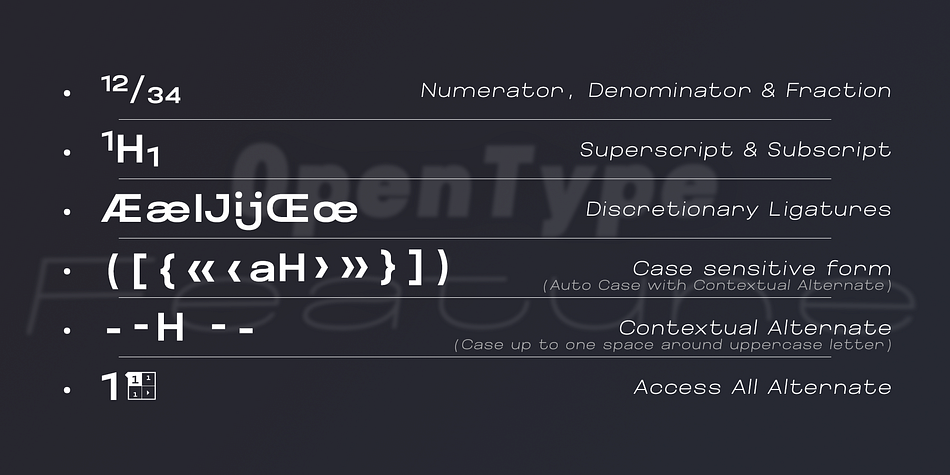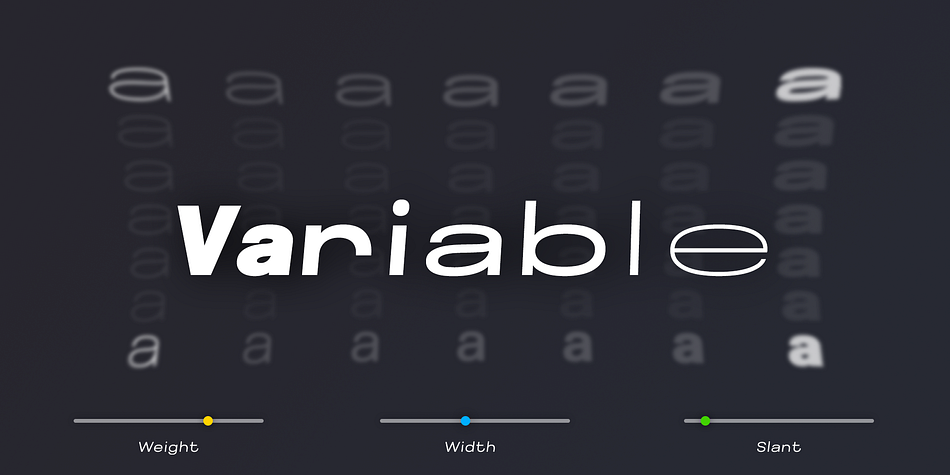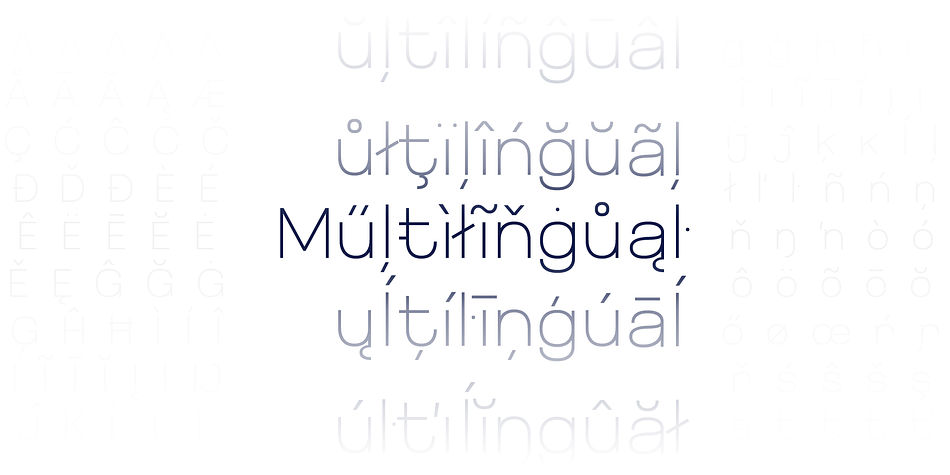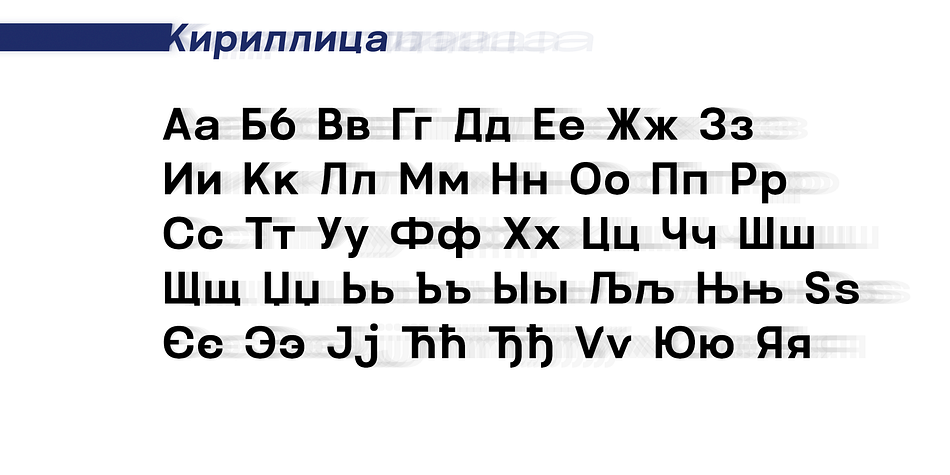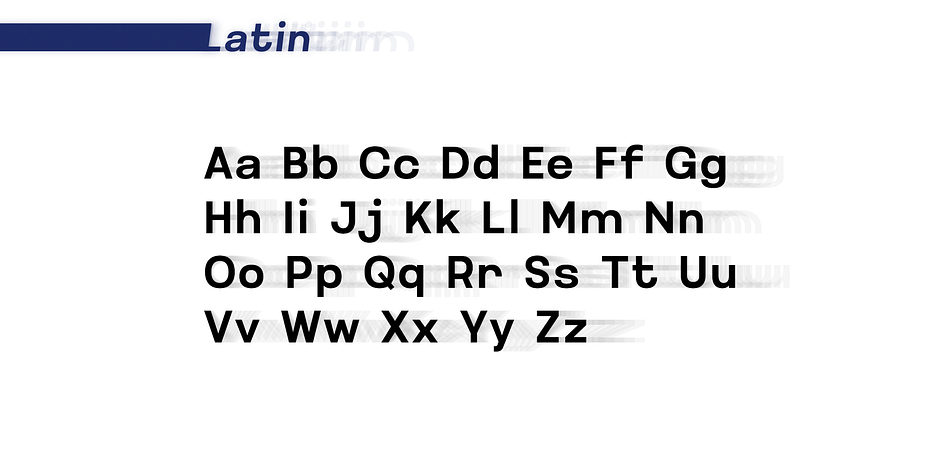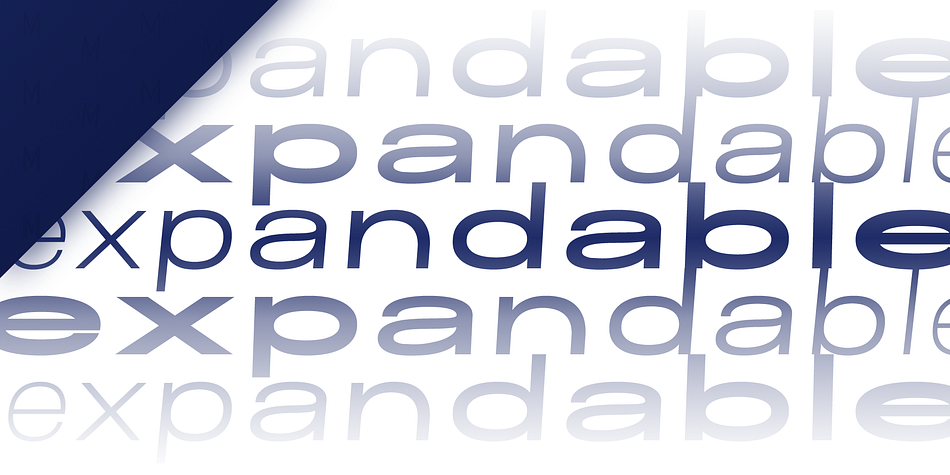
Maincode
Maincode is a sans serif font family. This typeface has ninety-nine styles and was published by Par Défaut.
Maincode is a font Family declined in 7 weights, 7 widths and oblique. There is also a variable version.
The family was composed of 542 glyphs, Latin & Cyrillic alphabets and 10 OpenType Features (numerator, denominator, superscript, subscript, fraction, Tabular form, case sensitive form, discretionary ligatures, contextual alternate, all access alternate).